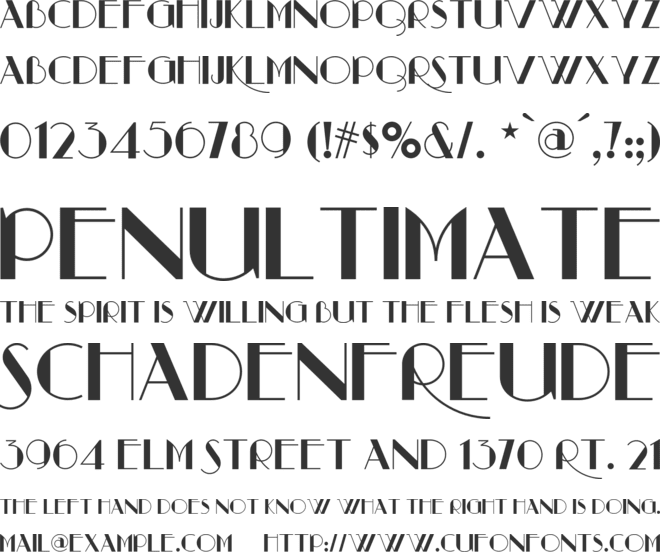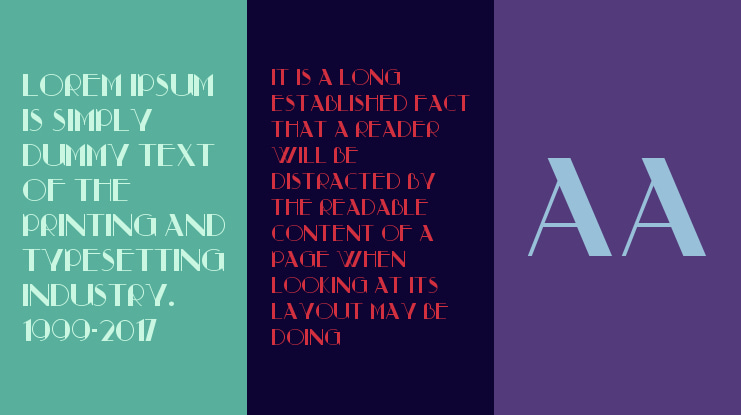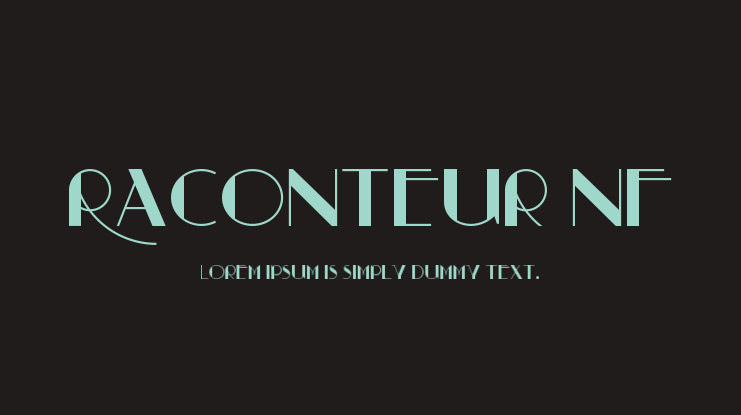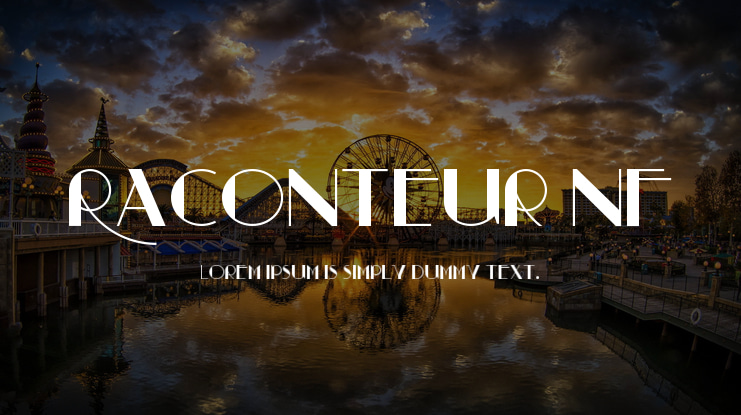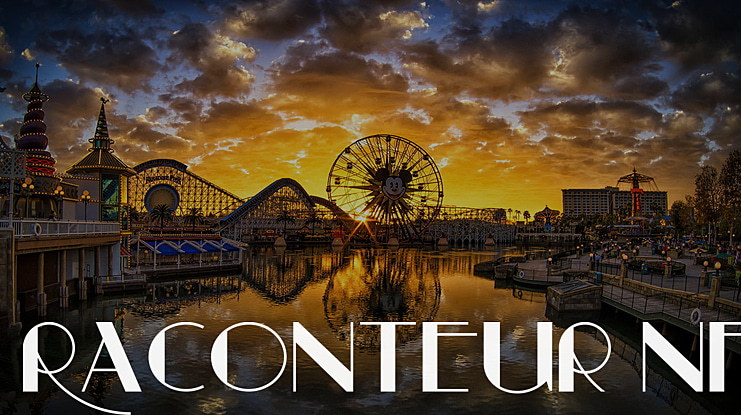
Nick Curtis
Lettering in a 1923 ad for Piera Nova, designed by Hernando G. Villa, inspired this delightful Deco offering.
Like its namesake, this font is a talented teller of tales, both elegant and entertaining.